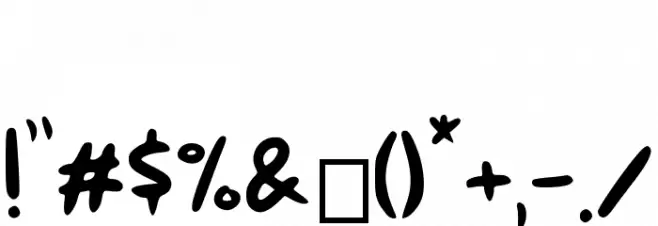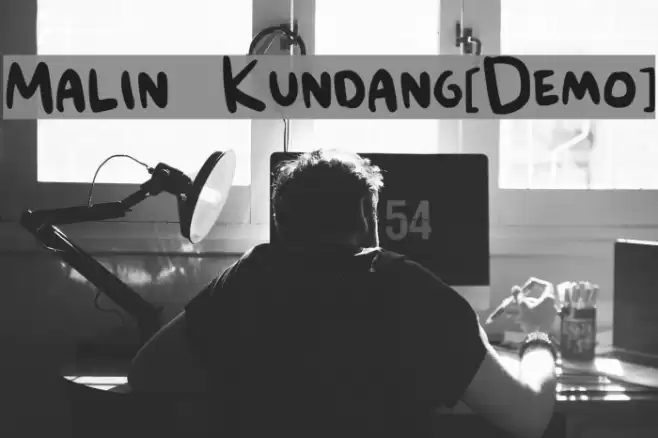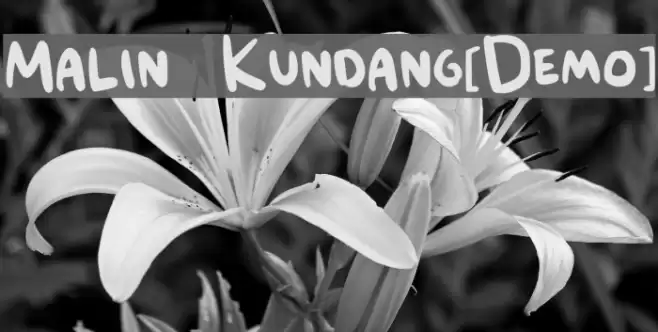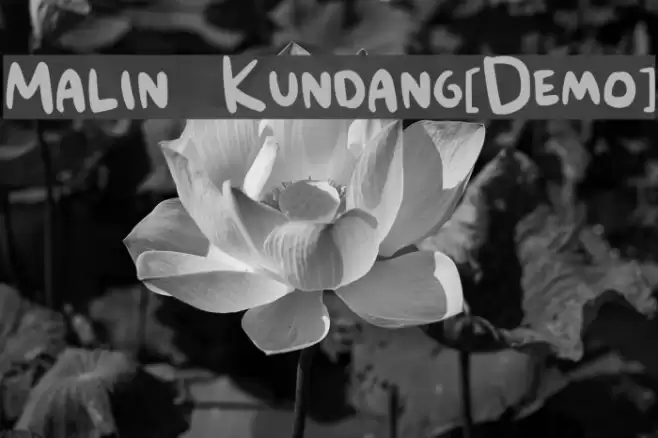
Malin Kundang[Demo] Font
Malin Kundang[Demo] Description
This font features a bold and playful handwritten style, characterized by its thick, rounded strokes and casual, informal appearance. The letters are slightly irregular, adding a whimsical and friendly touch. The uppercase and lowercase letters maintain a consistent style, with a noticeable emphasis on rounded edges and smooth curves. The numerals and special characters follow the same playful design, making the font suitable for creative and informal applications. Its boldness ensures readability while maintaining a fun and engaging aesthetic.
| Overall Style | Playful |
| Proposed Projects | Ideal for children's books, playful branding, casual posters, and creative social media graphics. |